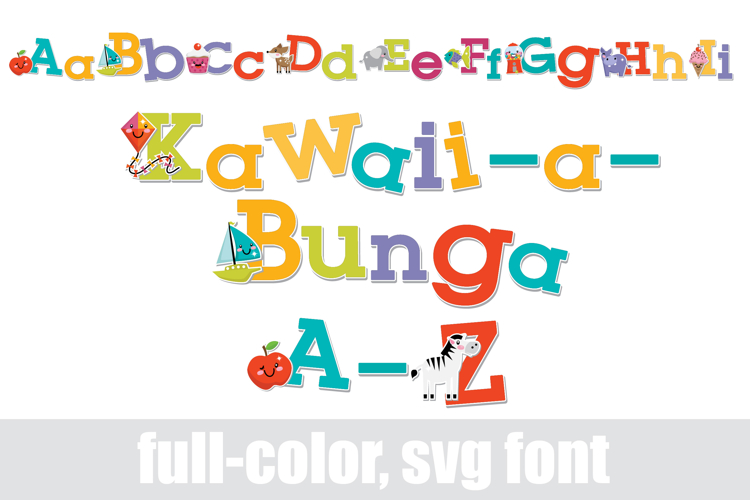
Kawaii-a-bunga Color Font
This full-color, whimsical font is a serif with imagery that represents the sounds of the letter it is sat upon. This resizable, full-color font is perfect to make classroom decor or flashcards. There is an alt case with additional colors of all the letters you can access through your system's character maps.